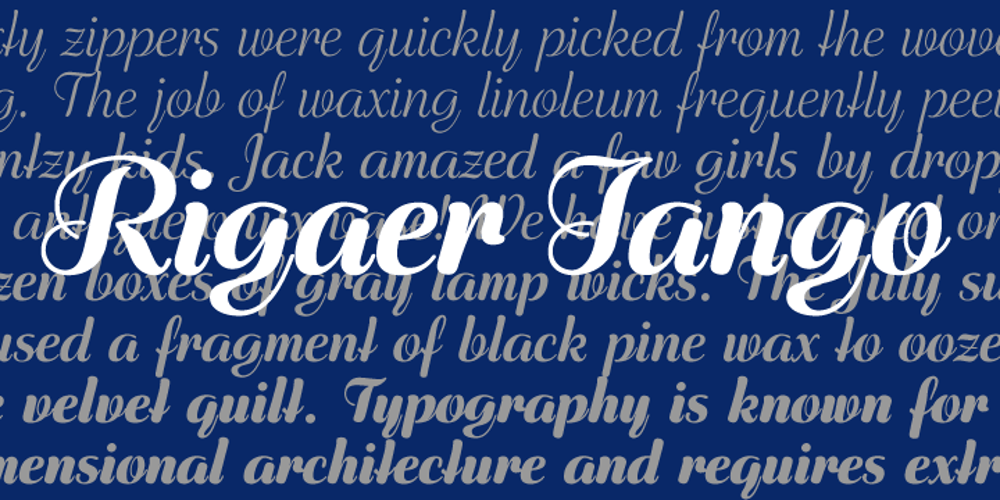
Rigaer Tango Pro Font Family was designed by Gustavs Andrejs Grinbergs and published by Tilde. Rigaer Tango Pro contains 1 styles and family package options. Coming up a celebration? Need to write a dear or a formal greeting? End of school year – writing diplomas? This elegant calligraphic typeface in four weights created by a Latvian type designer Gustavs A. Grinbergs suits both formal and informal applications. This Pro font is packed with all European alphabets, swash capitals, small caps, variable figure sets, features etc. A separate Swash font allows accessing Swash capitals from non-OpenType savvy applications like Microsoft Word and alike.